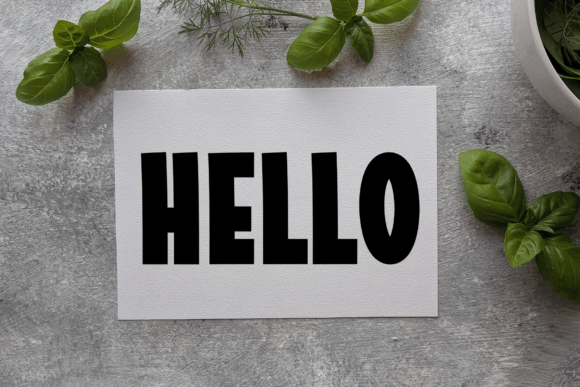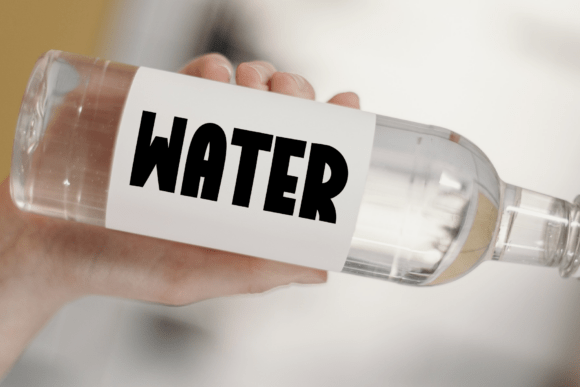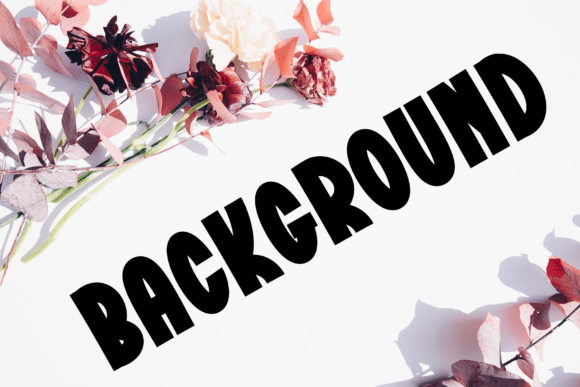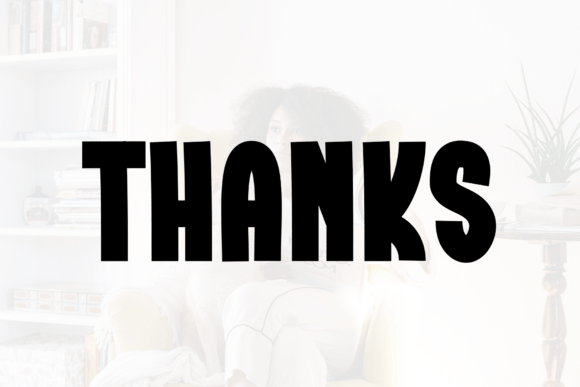
Adding a Touch of Whimsy to Your Designs
You know that moment when you’re working on a design project and you’re stuck? The cursor blinks at you, taunting you to come up with something creative. But then, like a breath of fresh air, you stumble upon the perfect font. It’s like a ray of sunshine breaking through the clouds, illuminating your entire design. For me, that font is the Freeday Font – a sweet and beautiful handwritten font that adds a cozy accent to any design project.
With its unique, dancing characters along the baseline, the Freeday Font is a valuable addition to any designer’s toolkit. Whether you’re working on a branding project, a social media campaign, or a simple greeting card, this font will bring a touch of personality to your designs. Its versatility and charm make it a must-have for designers looking to add a little extra something to their work.
Freeday Font Key Features
- Font Family: Freeday Font is a sans-serif font family, suitable for digital and print media.
- Font Sizes: Designed to be highly legible at various sizes, from 8pt to 24pt, making it ideal for body text and titles.
- Resolution: Optimized for high-resolution displays (Retina, 2x, 3x, etc.), ensuring crisp and clear text at any zoom level.
- Unique Characteristics: Freeday Font features a distinctive geometric shape, with subtle rounded edges and a clean, modern aesthetic.
- Character Set: Supports a wide range of languages, including Latin, Cyrillic, and Greek, making it a versatile choice for global projects.
Freeday Font Review
Freeday Font is an interesting take on the modern sans-serif font family. Overall, I found it to be ✨ well-designed and visually appealing. The font has a clean and minimalist aesthetic, making it suitable for various design applications.
- ✨ Unique character set: The font features a distinct set of characters, which adds to its charm and sets it apart from other sans-serif fonts.
- ✨ Good legibility: The font is easy to read, even at smaller font sizes, making it a great choice for body text and other long-form content.
- ✨ Versatile: Freeday Font comes in a range of weights and styles, allowing designers to experiment with different combinations to suit their needs.
However, there are some limitations to consider: ⚠️
- ⚠️ Limited language support: The font’s character set is not comprehensive, which may limit its use in certain languages or cultural contexts.
- ⚠️ Not suitable for complex typography: While the font looks great in simple applications, it may not be the best choice for complex typographic arrangements or intricate designs.
- ⚠️ Some glyphs may require adjustment: A few of the font’s glyphs may require adjustments or fine-tuning to ensure proper alignment and spacing.
Overall, Freeday Font is a solid choice for designers looking for a modern and stylish sans-serif font. While it may have some limitations, its unique character set and good legibility make it a great addition to any design toolkit.
To get the most out of the Freeday font, use it in conjunction with other bold and sans-serif fonts to create a visually appealing design. Experiment with different font sizes and colors to add emphasis and hierarchy to your design.
The Freeday font is ideal for use in creative and modern designs, such as logos, social media graphics, and advertising materials. It’s also suitable for use in business and corporate settings, such as presentations and reports.